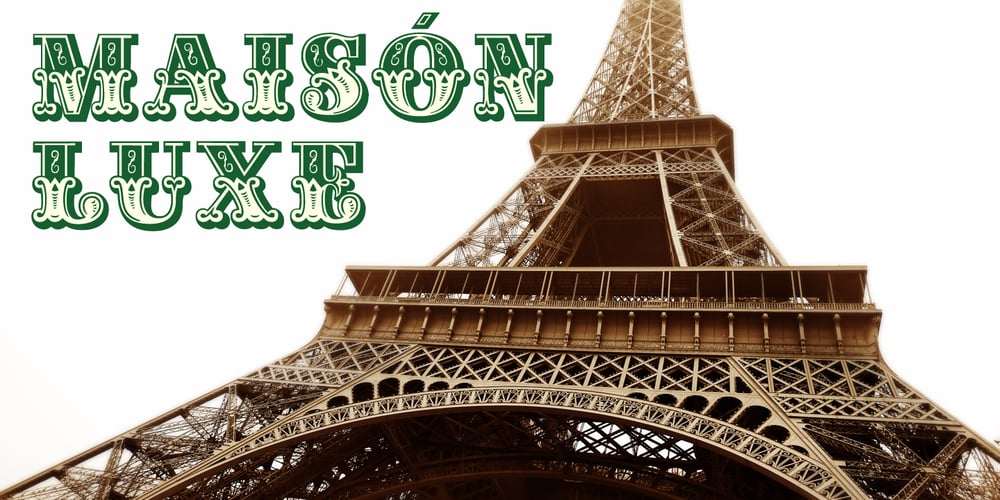
Maison Luxe Font Family was designed by Michael Hagemann and published by FontMesa. Maison Luxe contains 3 styles and family package options. Maison Luxe is a revival of a very old font designed in France in or around the year 1820. You may have seen this font in the past under the names of Circus, Roma, Madame and Gillé Classic. As of November 2016 we have changed the name of this font from Gillé Classic to Maison Luxe which means Luxury House in French. For many years Joseph Gillé was credited as the original designer of this font however we’ve recently been contacted by a type historian in France reporting that he could not find any evidence supporting Joseph Gillé as the designer and to the best of his knowledge an artist by the name of Sylvestre may be the true designer. If you love this classic font then you’re sure to enjoy the alternate version also with a matching lowercase available from FontMesa under the name of Home Style. This version of the classic with its squared off shadow is true to the original design where Home Style has diagonal lines creating a cast shadow. New in 2016 for Maison Luxe is a new matching lowercase, an uppercase German Double S (versal eszett), Greek character set, opentype features including case sensitive forms and old style numerals. We know you’ll enjoy the new additions to this timeless classic design.